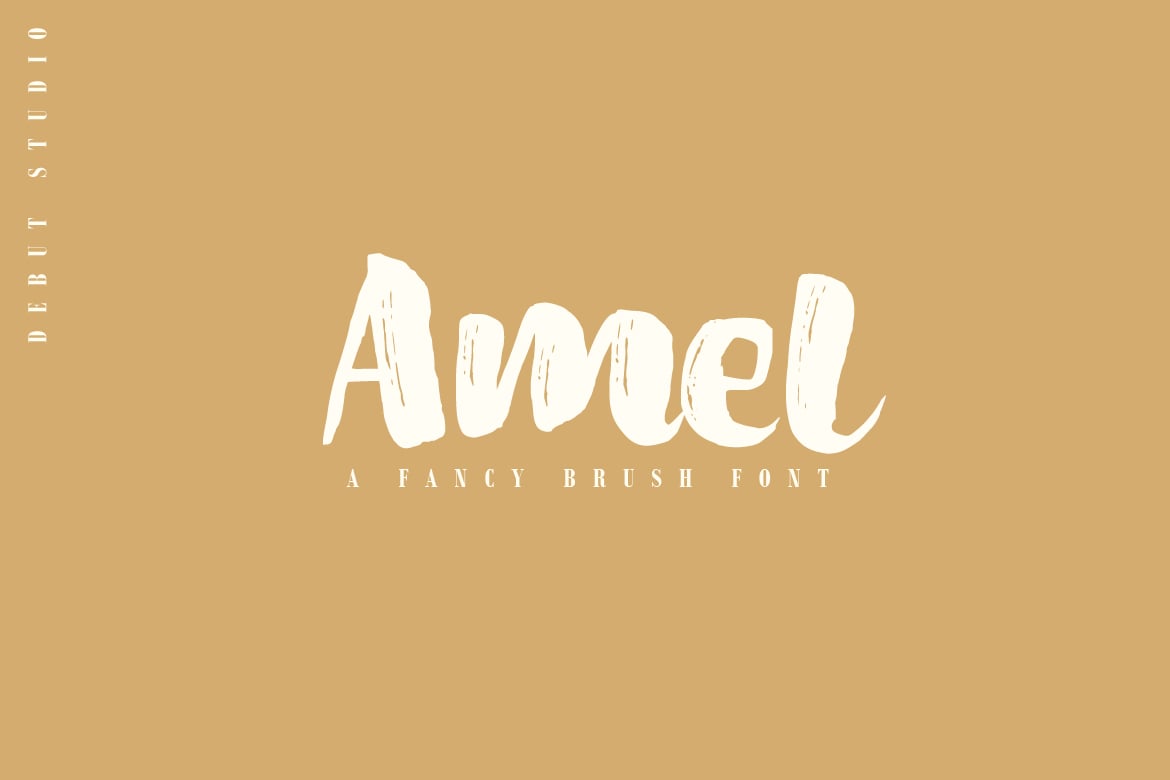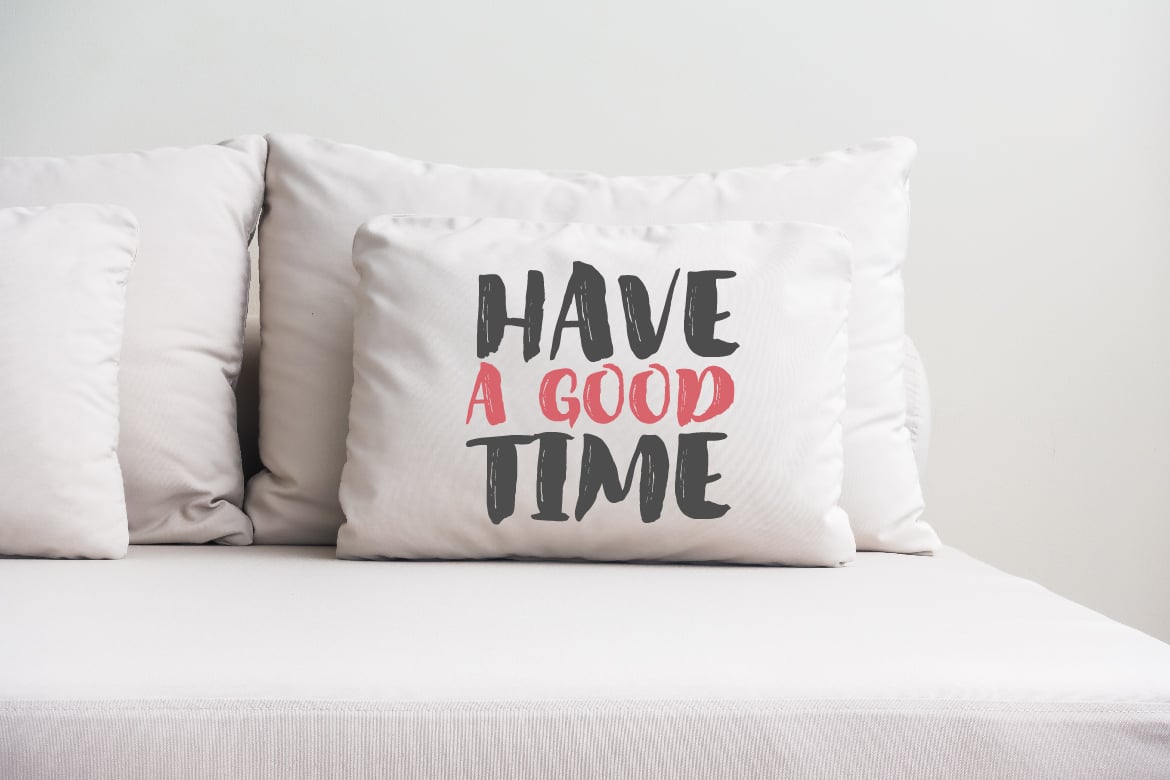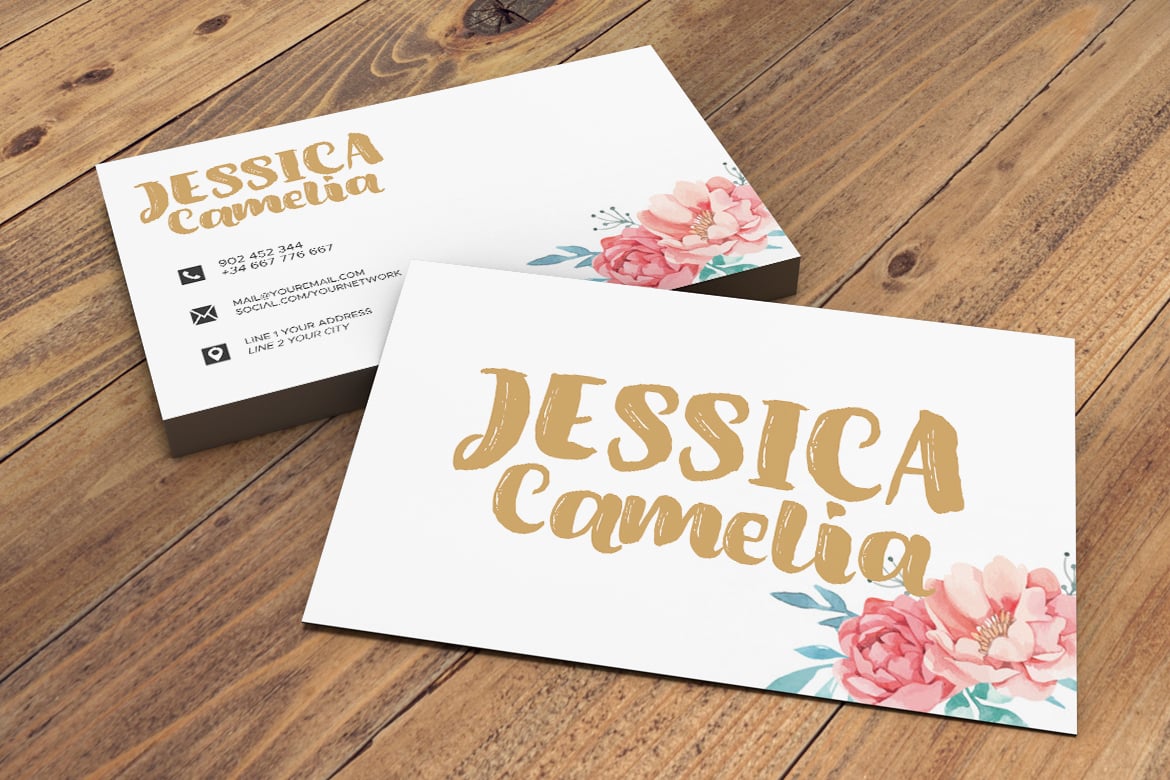
Amel Brush Font
Introducing Amel Brush Font
This font inspired from my handlettering, that look fancy and cute, Suitable for the design of branding product, quote motivation, brochures, invitations, and other interesting design purposes.